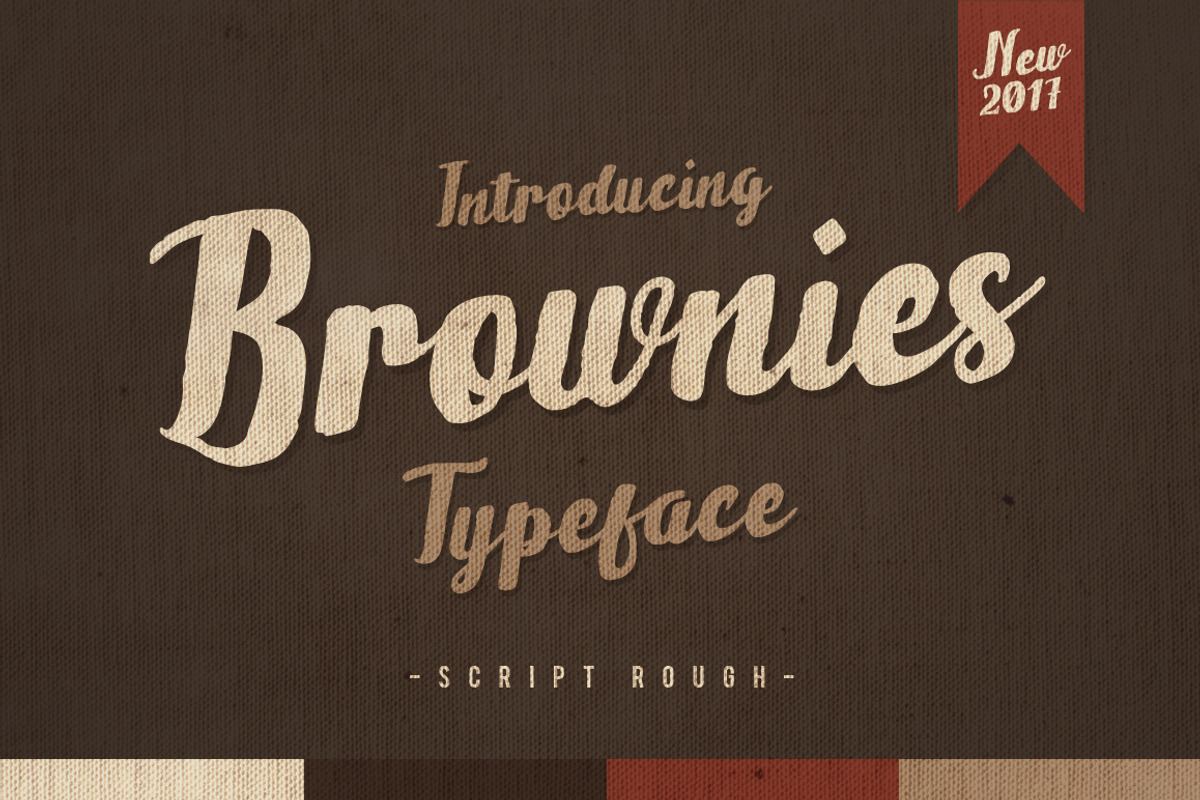
Brownies Typeface Free Download
The Brownies Typeface Free Download is a fun and playful typeface that adds a casual, yet stylish touch to your designs. With its rounded, friendly letterforms and unique character, this font is perfect for creating logos, branding, posters, and creative projects that need a warm, approachable vibe. Whether you're designing for a bakery, a casual event, or a playful brand, Brownies brings charm and personality to your work.
Brownies Typeface Free Download is ideal for designers looking to add a cozy and fun feel to their typography. Perfect for creative, casual designs or playful branding, this font will bring your projects to life with a fresh, inviting look. Download it today and infuse your designs with the charming, delightful style of Brownies!